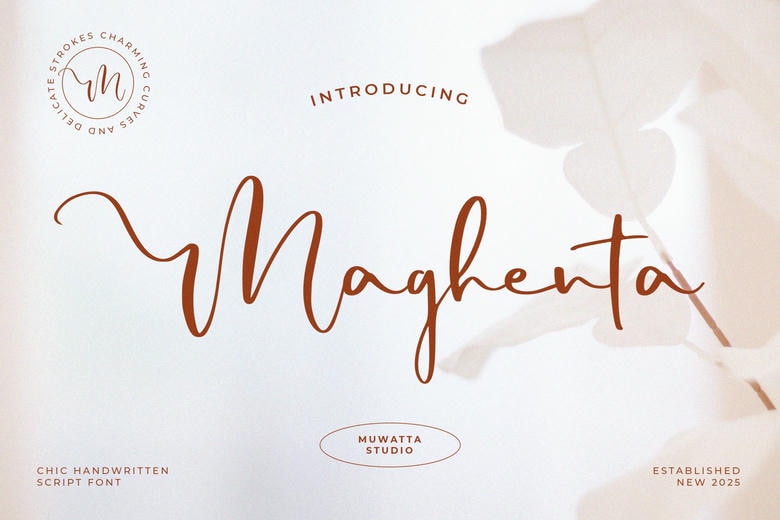
Maghenta Font
Enter a world of whimsy with Maghenta, a whimsical font that captivates with every stroke. Designed with a touch of magic and unique character, Maghenta brings the feel of a fairy tale to life in letterforms—vivid, flowing, and full of personality.
Maghenta Handwritten Script Font